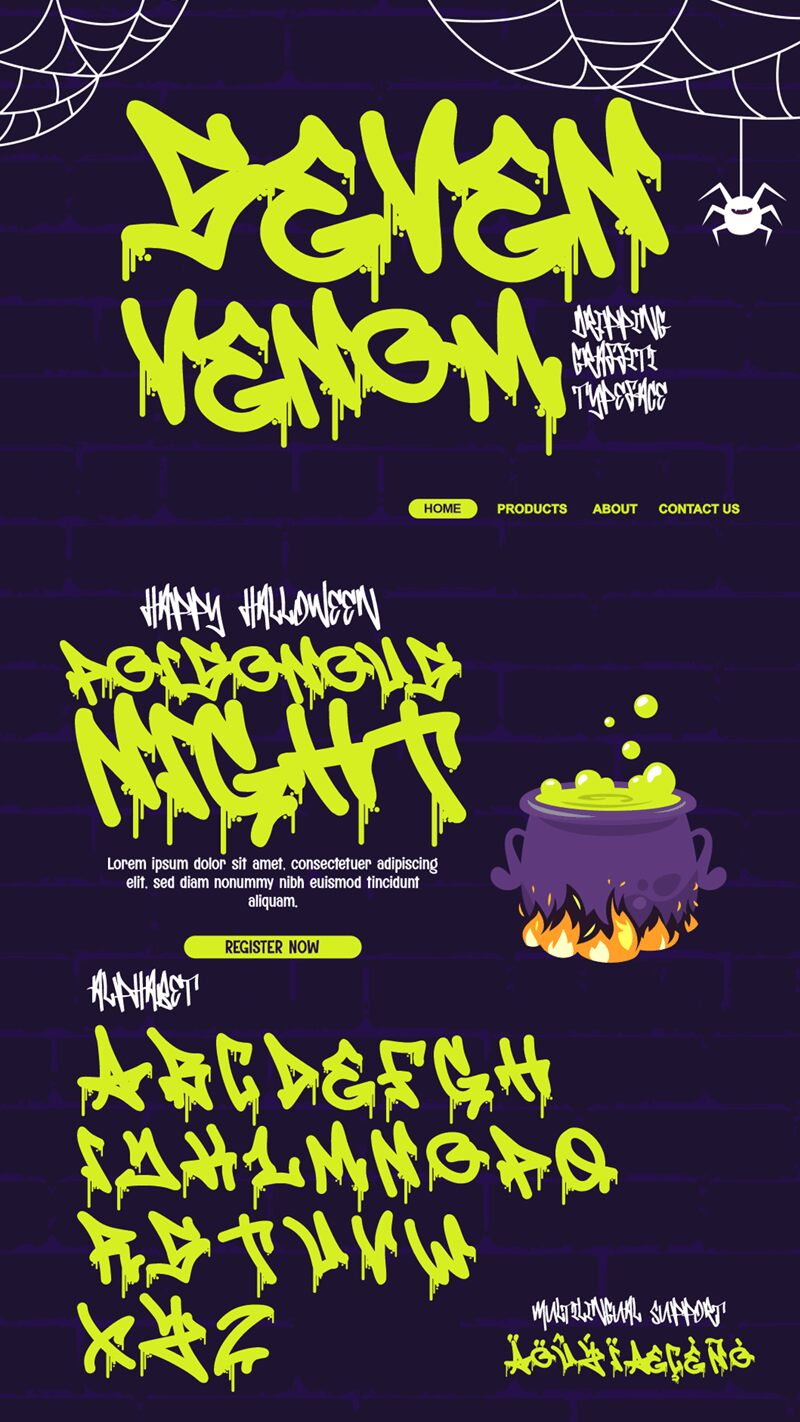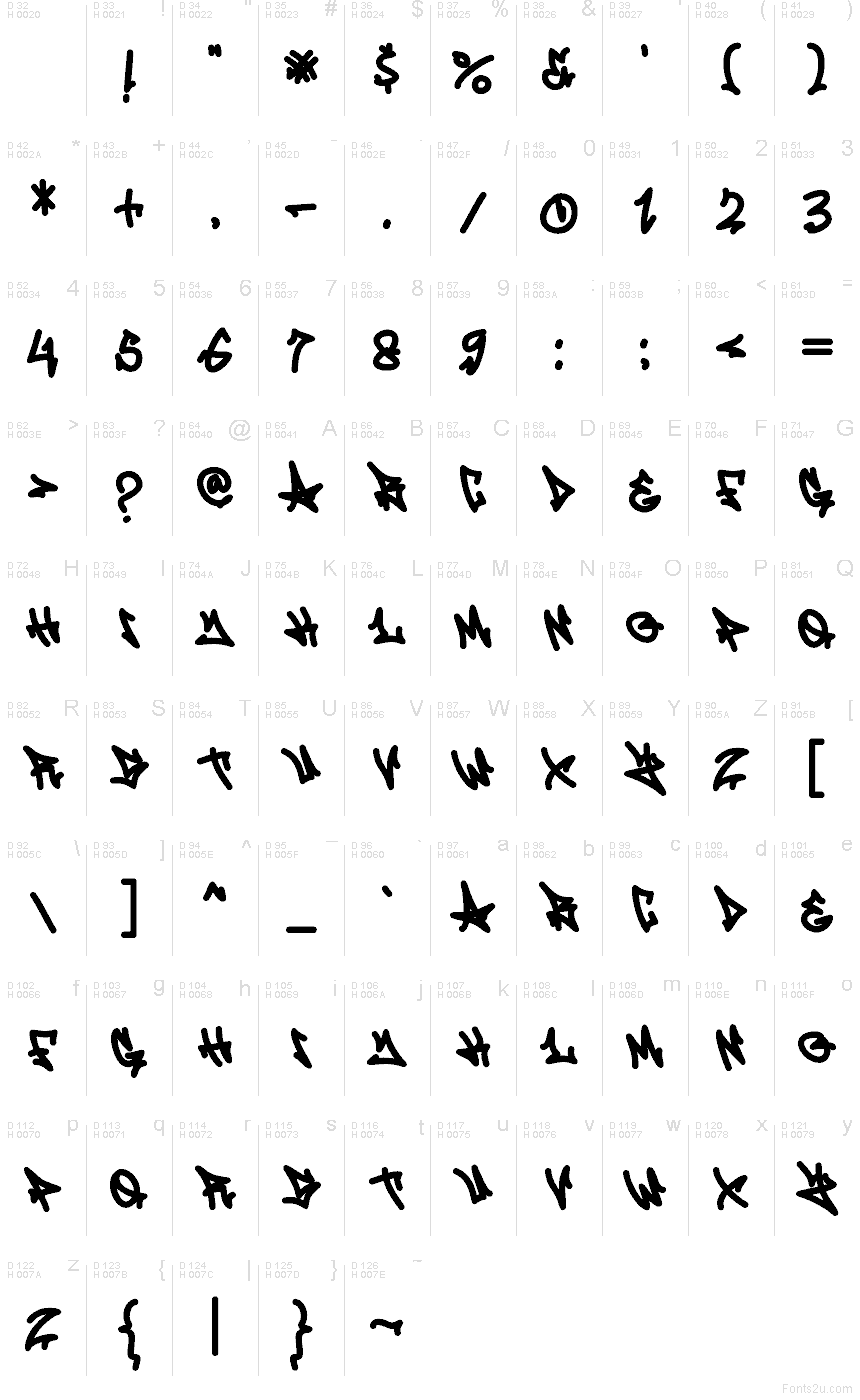
Seven Venom font by Muhammad Panji Ramdhani of Sipanji x Figuree is a free graffiti font, all thick ink and quick wrist-flick energy. The letters feel sprayed in one bold pass-chunky, slightly wild, and tightly packed so your words hit like a tag on fresh concrete. It’s got that streetwise rhythm that reads fast, even when the shapes get loud.
Using Seven Venom, you’ll get strong results on streetwear logos, skate graphics, album or mixtape covers, poster headlines, YouTube/stream overlays, sticker designs, and event flyers with an urban edge. Try it big-let it breathe with extra spacing-and pair it with a clean geometric sans for dates, captions, or product details so this free font stays the main punch.